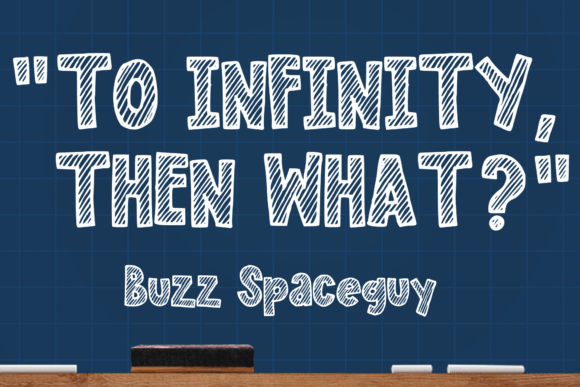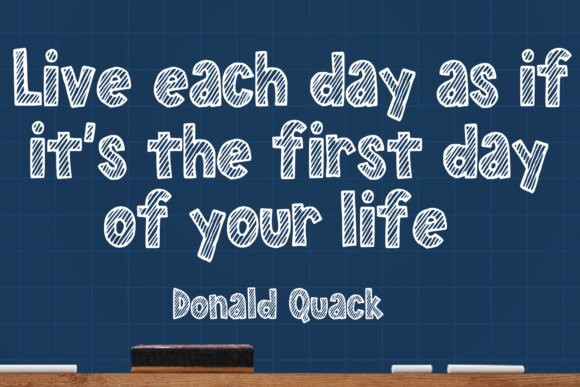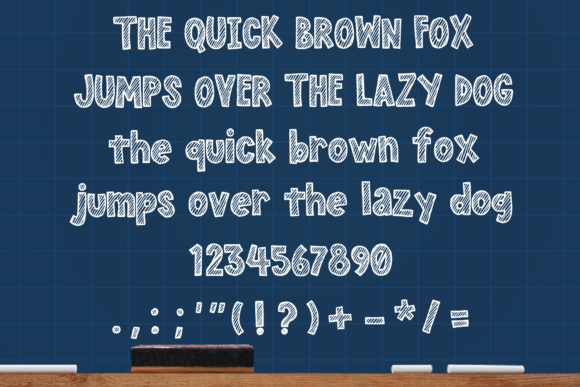
Introduction to Nexa Chalk Font
Nexa Chalk is a fun and playful shaded chalk handdrawn font inspired by natural chalk writing and drawing, suitable for your school projects and more.
It will elevate a wide range of design projects to the highest level You can use this font for many design ideas such as stickers, t-shirt designs, amazing logo designs, magazine or book covers, comics, cartoon drawings, and many more.